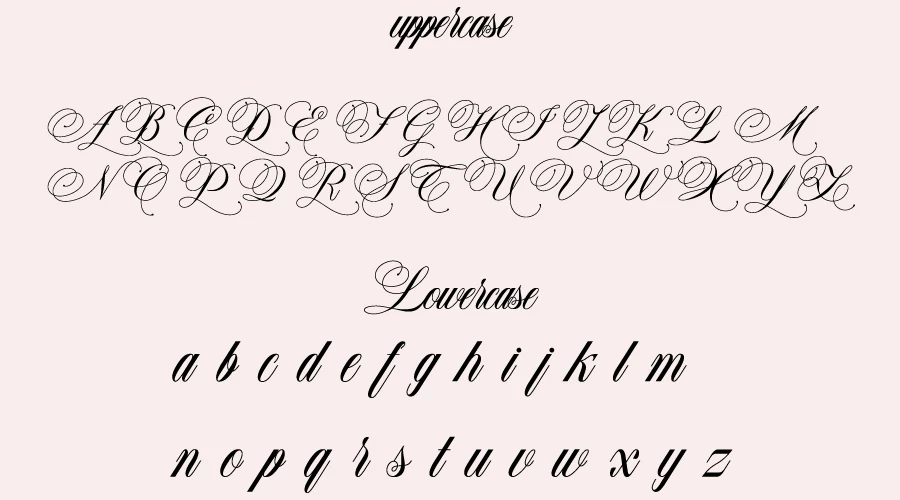
The Hermaiona Calligraphy font is a stunning and elegant display typeface. This font was crafted with exceptional attention to detail. Aluyeah Studio designed it with the inspiration of some of the most prominent names in the fashion industry. This calligraphy font is modern.
Each stroke of the letter adds an aesthetic touch to the text. Hermaiona is attractive as a typeface. Thanks to the numerous fancy connections between the letters, it is smooth, clean, glamorous, simple, and easy to read. There are different baselines, smooth lines, attractive alternates, and beautiful glyphs in the font, all of which make it suitable for any text.
This elegant typeface has uppercase, lowercase, numbers, and punctuation. It is very easy to use. However, it is OpenType supported. Additionally, to use the alternatives of the typeface, using a combination of A.2 B.2 a.2 a.5 b.3 would give you access to the alternatives of this font.
This font only supports Latin languages. However, PUA encoding enables the user to access all the glyphs, ligatures, and swashes. Hermaiona Calligraphy Font supports 15 languages. Since the release of this font on March 19, 2020, it has had two updates on March 24, 2020, and February 11, ’21.
If you’re a fan of classic calligraphy, you’ll love this new font. It is a stylish aesthetic. This font is perfect whether you’re a fan of classic lettering or just looking for a refreshing change. This font is ideal for your social media, restaurants, spas, greeting cards, luxury brands, fashion brands, resorts, cosmetics, invitations, weddings, branding, packaging, magazines, boutiques, headers, and headlines.
This font is suitable for creating logos, menus, branding materials, or any other type of design project that needs to have a refined and luxurious look. It creates a luxurious, rich, exclusive, and elegant look in design, perfect for any project requiring a high-end appearance. If you’re looking for a luxurious and classy design that is 100% the opposite of the standard, look no further than this one. It has 100 rich and luxurious alternate designs.
| Name | Hermaiona Calligraphy font |
| Designer | Aluyeah Studio |
| Style | Display, Calligraphy, Script |
What type of font is this?
Ans: The Hermaiona Calligraphy font is a stunning and elegant display typeface.
Who designed the font?
Ans: Aluyeah Studio designed it with the inspiration of some of the most prominent names in the fashion industry.
Is it a classic font?
Ans: It is a modern font with classic aesthetic touch.